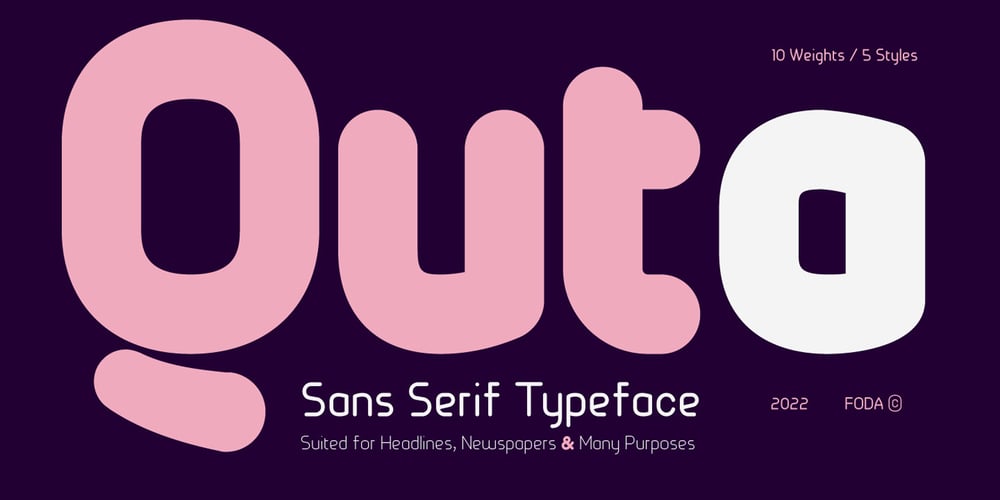
Quta Rounded Font Family was designed by Ahmed Eraqi, Nohamad Foda, Esraa Amer and published by Fo Da. Quta Rounded contains 10 styles and family package options. Quta Rounded “derivative typeface from Quta” is a sans serif typeface produced by FoDa foundry, that meets all the needs of professionals who search a family of clean rounded geometric font, very well suited for headlines, newspaper and many purposes.With a basic character set in Five weights with their italics.Quta Rounded covers many features like:-Five main weights (Light, Regular, Medium, Bold and Extra Bold)-Matching italics for all weights.-language support for many Latin-based scripts-Ligaturesand many other OpenType features.